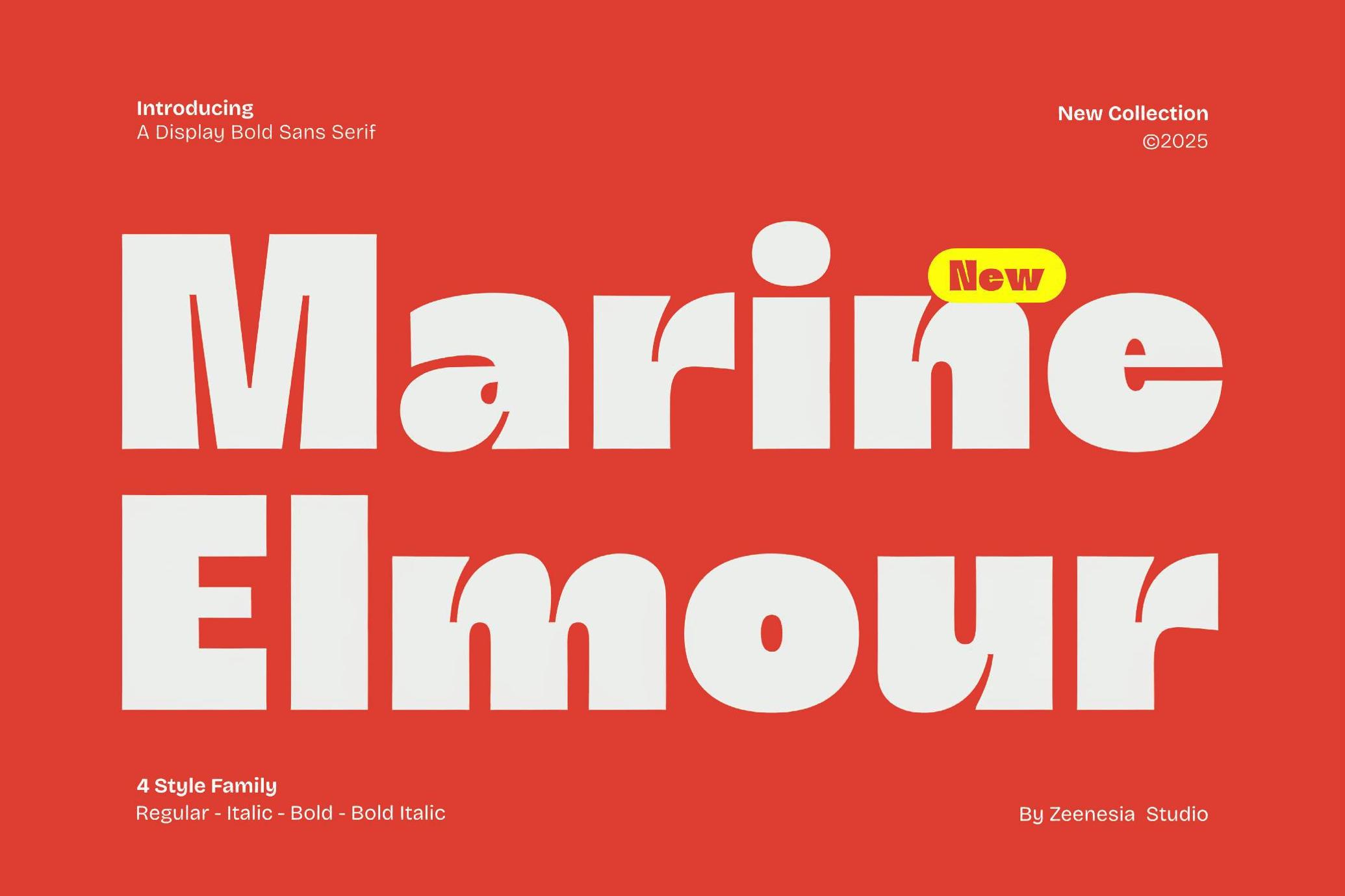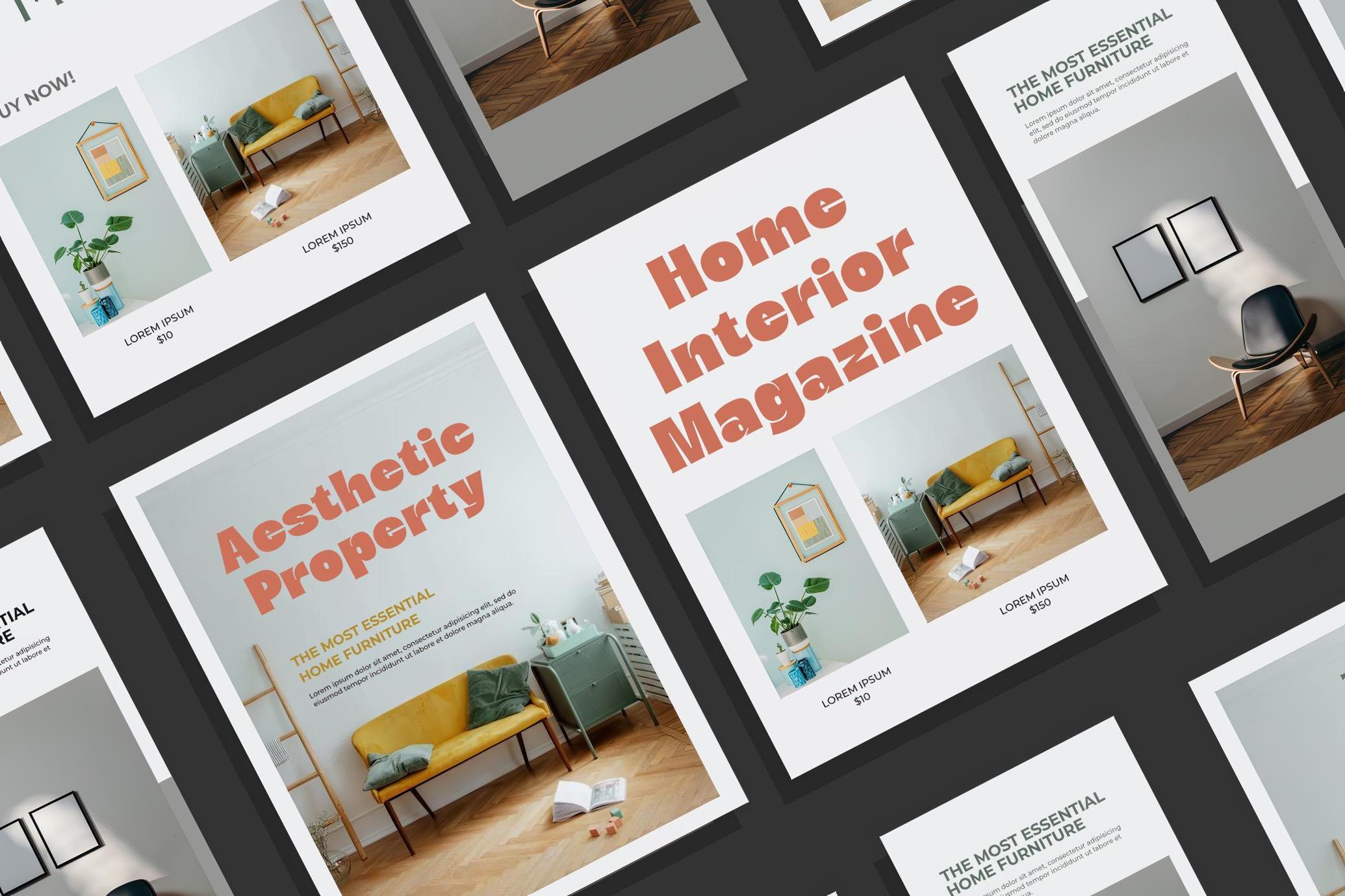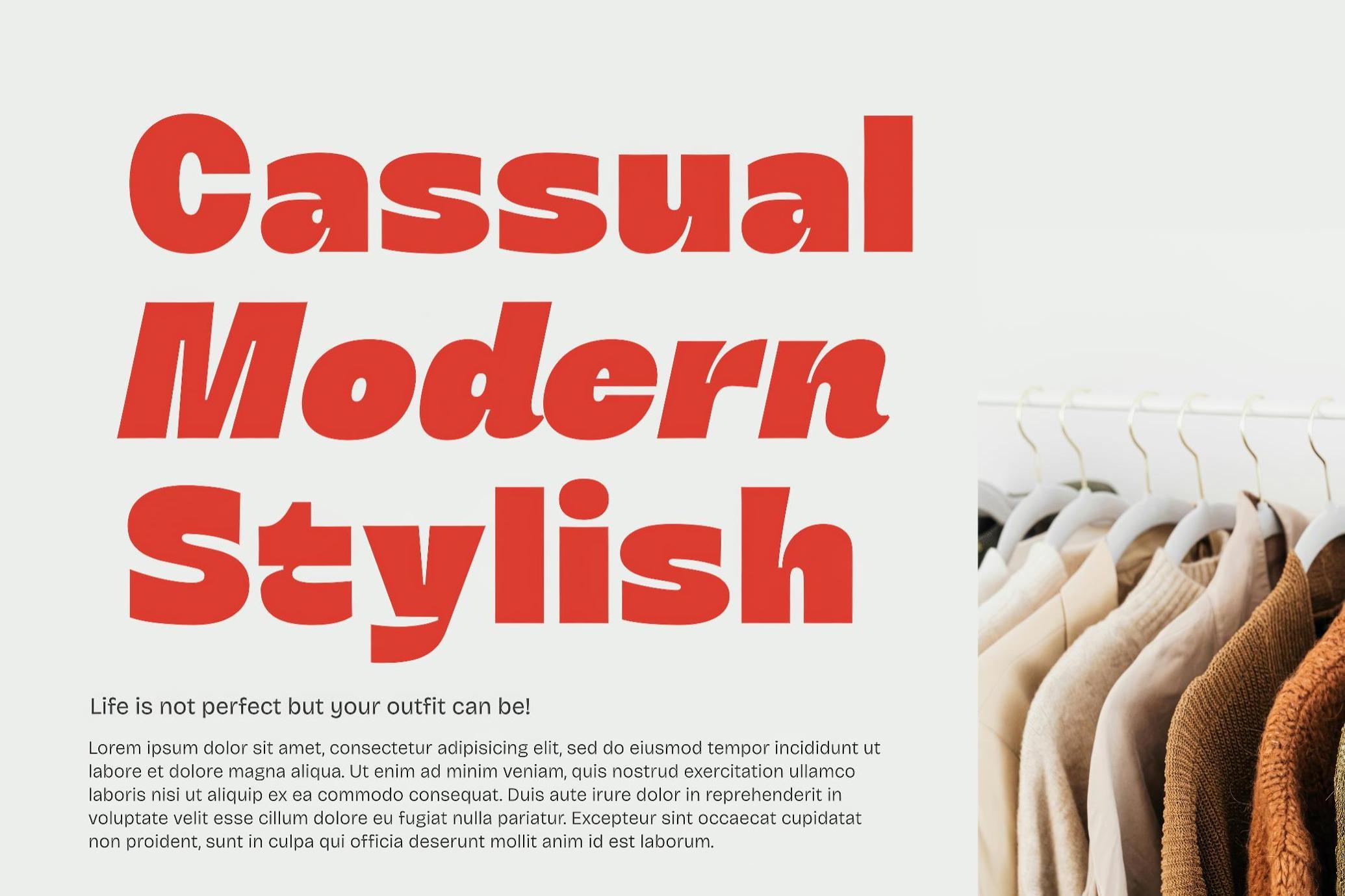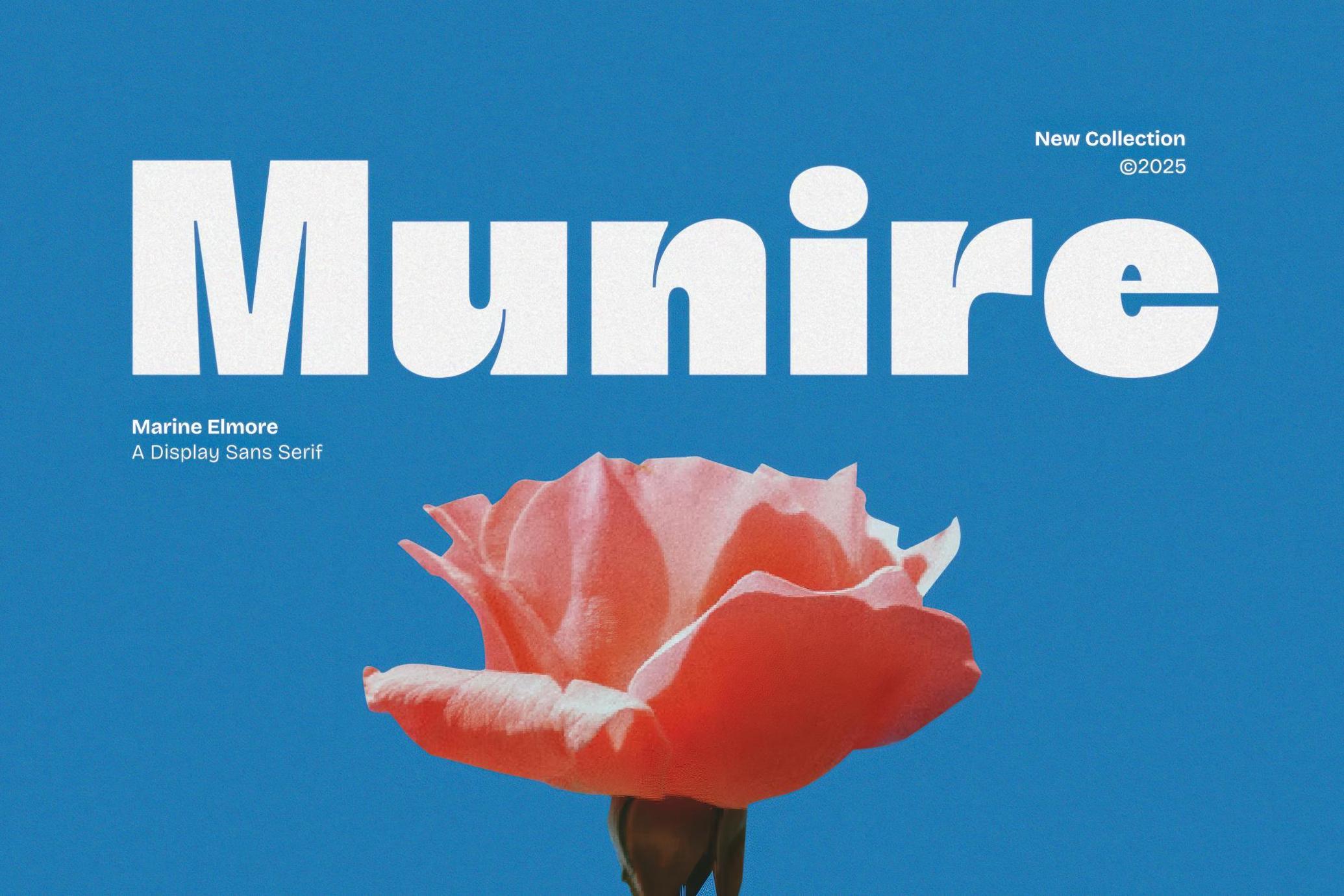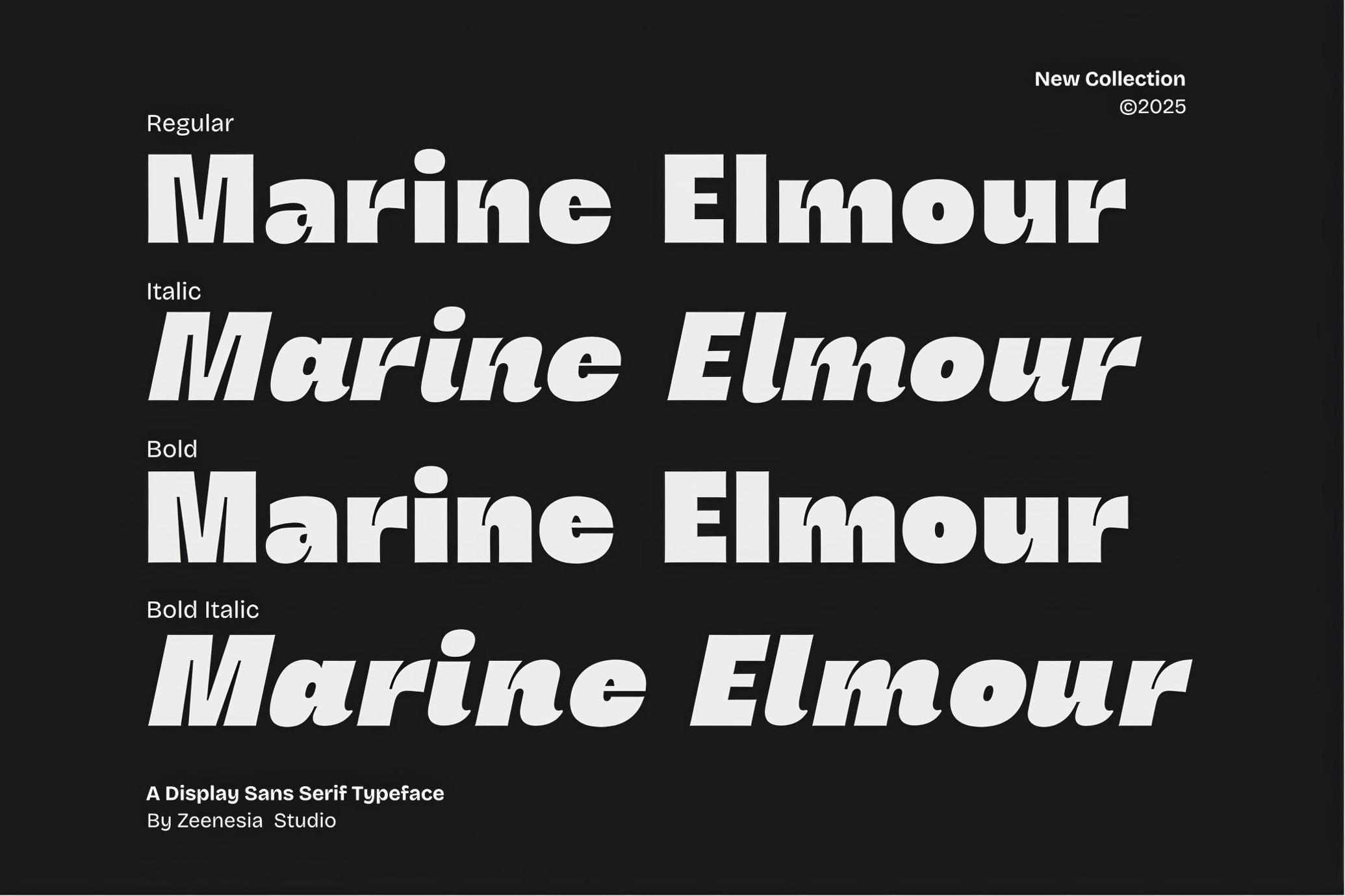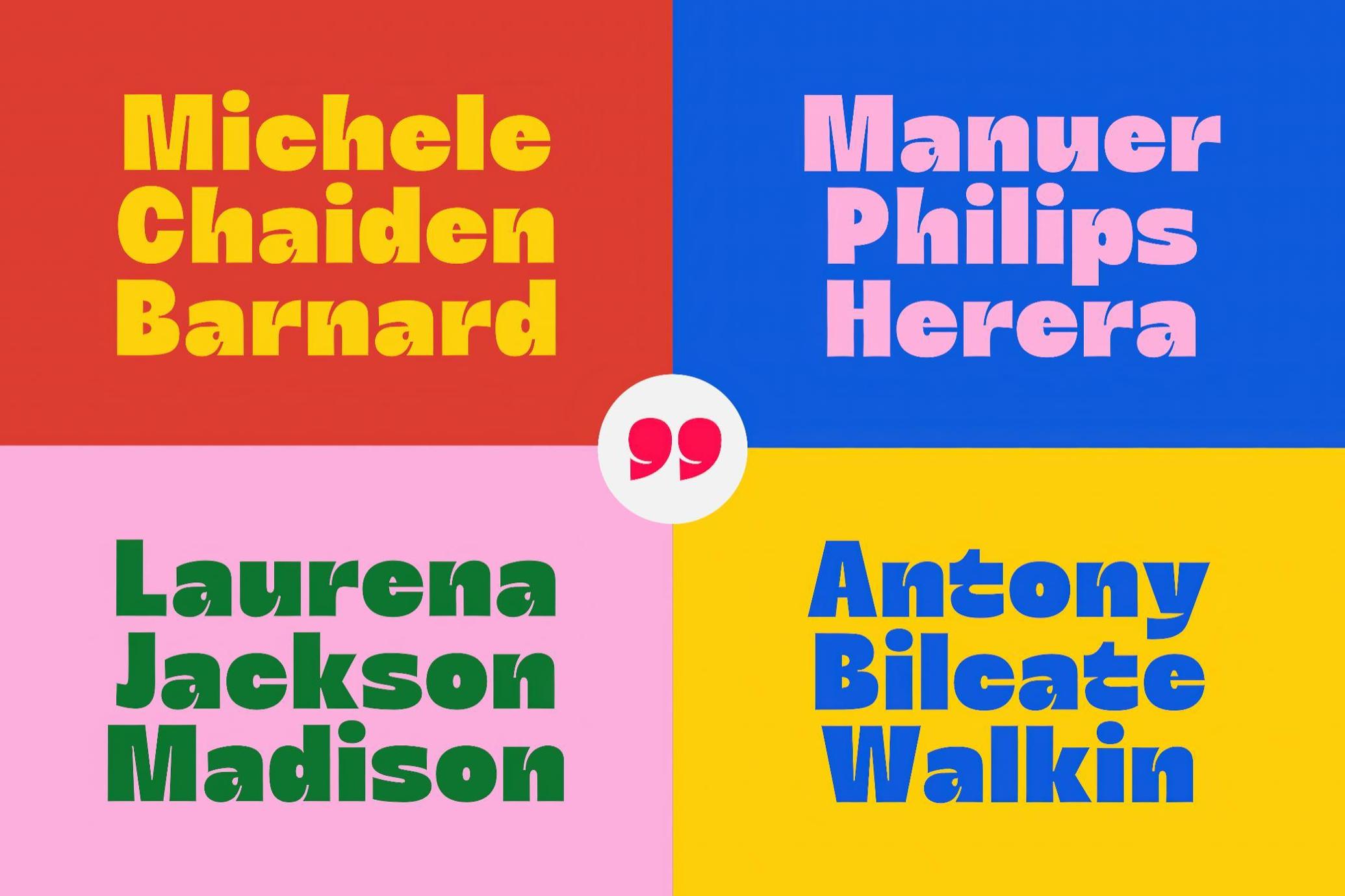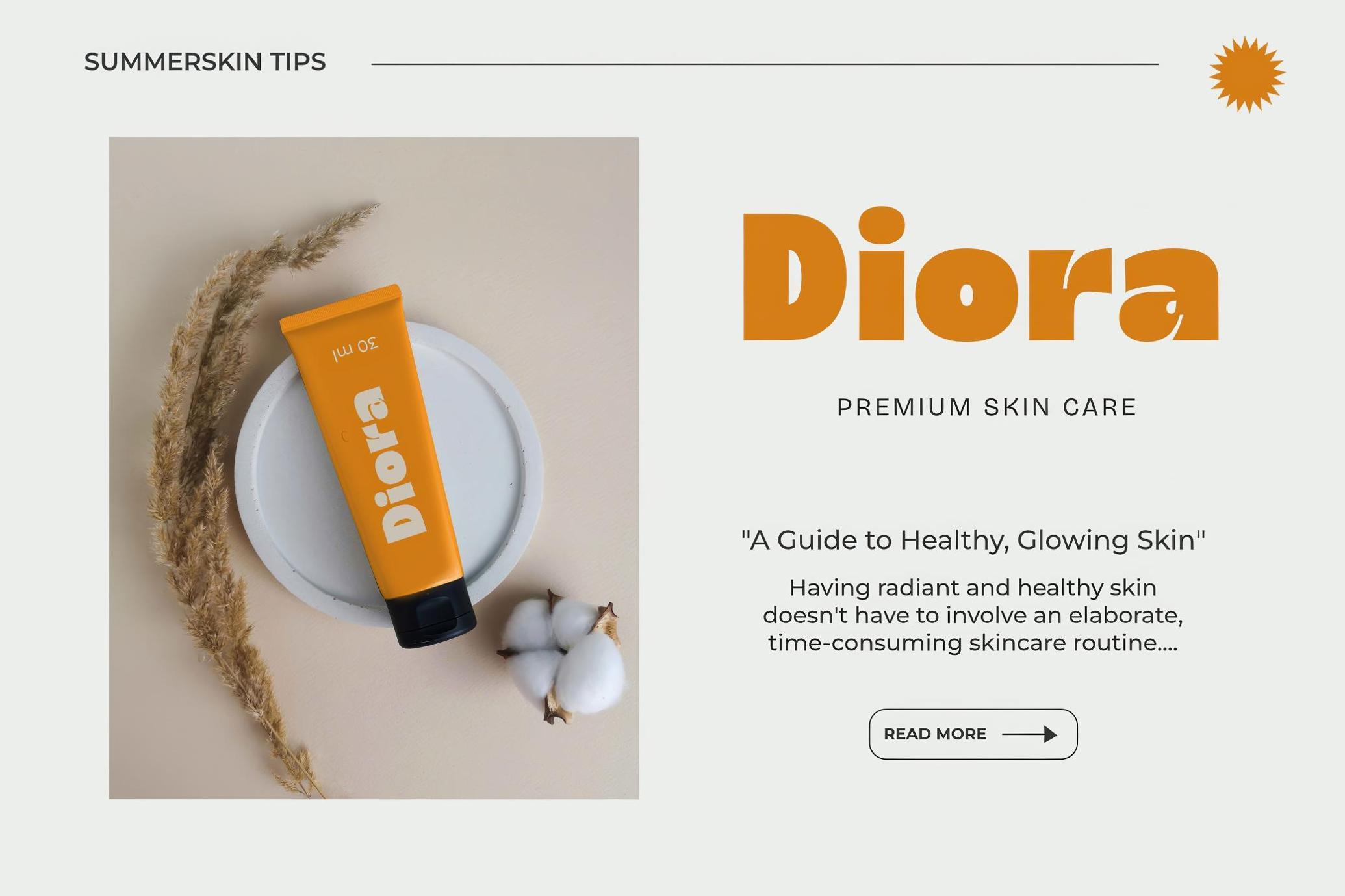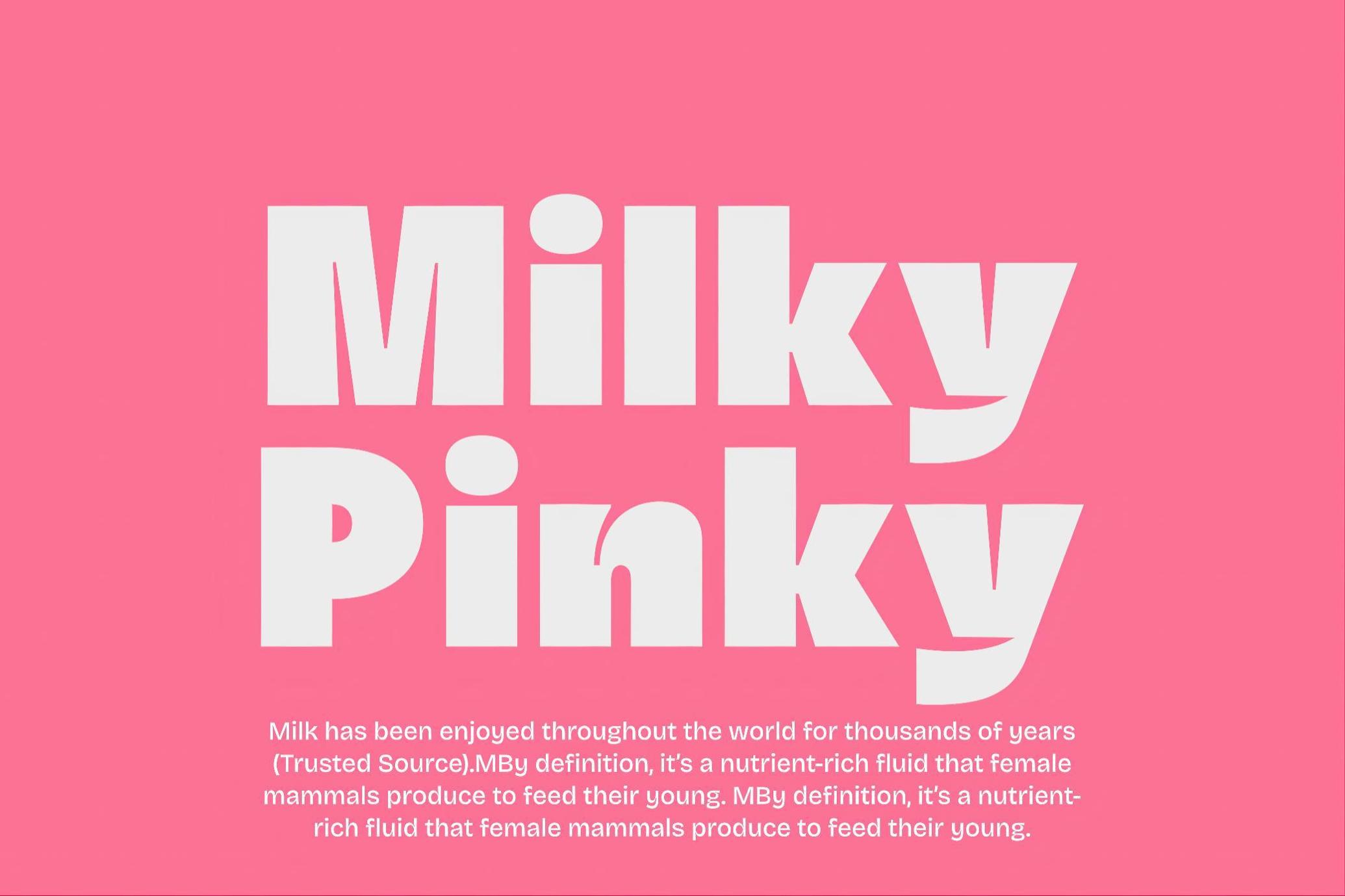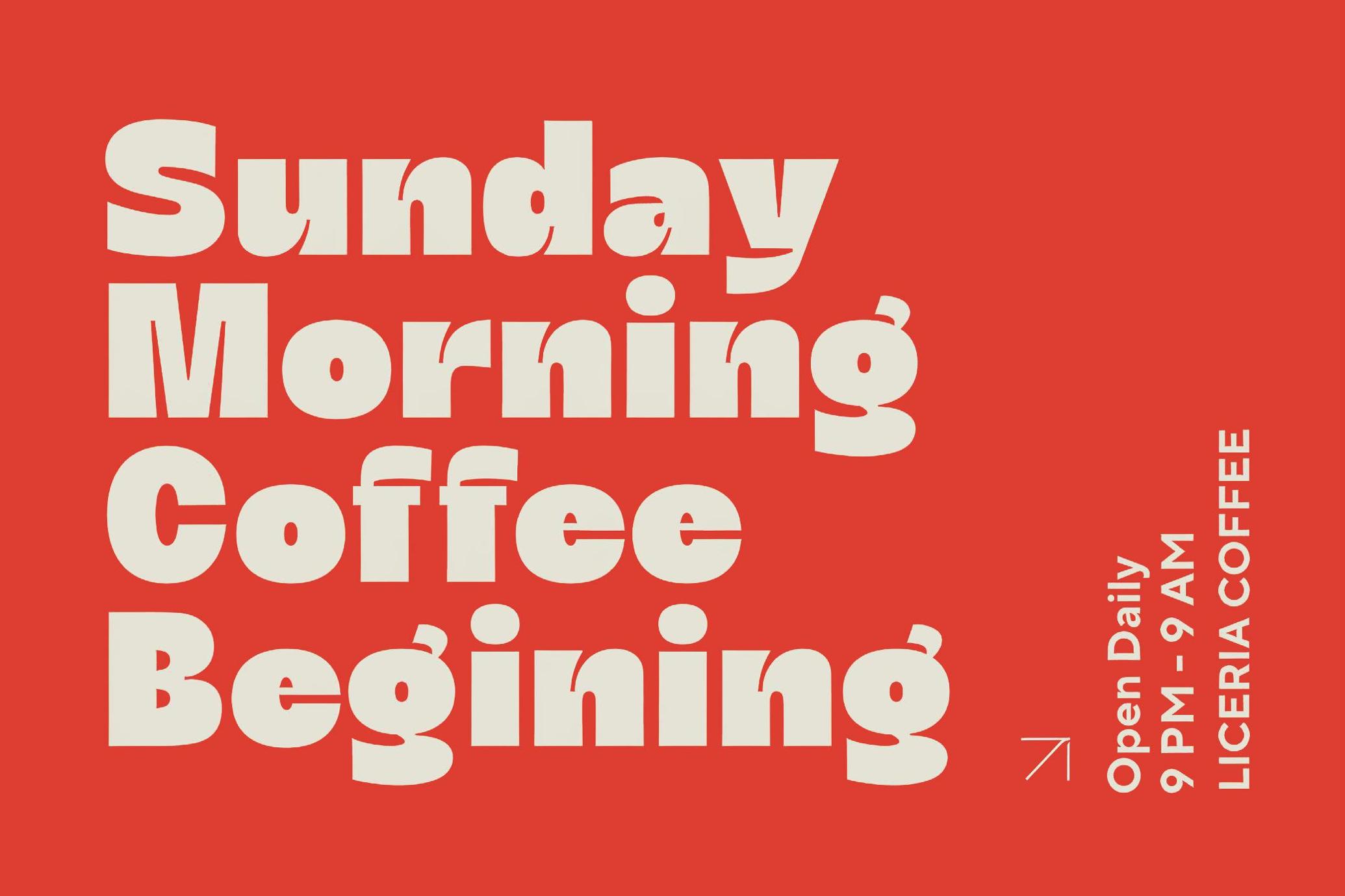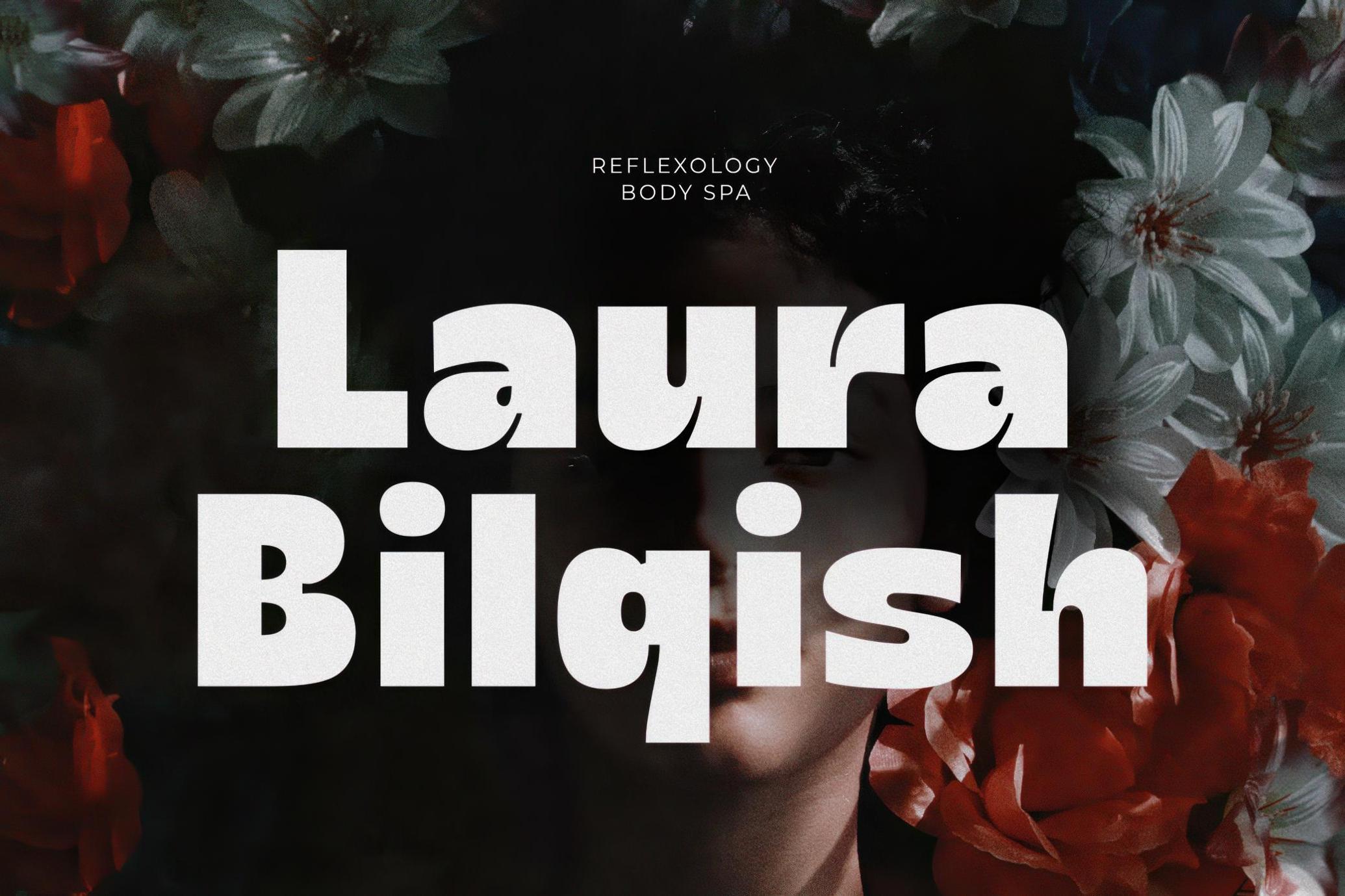
Marine Elmoure Sans Serif
Marine Elmour is the drama. This bold sans serif style emphasizes chunky letterforms with a quirk, as it explores classic signage and editorial type. The slanted italics cut through the weight like a stylized wink. The family includes four styles: Regular, Italic, Bold, and Bold Italic. Available in OTF, TTF, and WOFF formats with standard glyphs, multilingual support, and web fonts. Compatible with Mac and Windows.
Perfect for magazine covers, political posters, streaming thumbnails, punchy packaging, gallery branding, expressive headlines, startup decks, or album artwork.